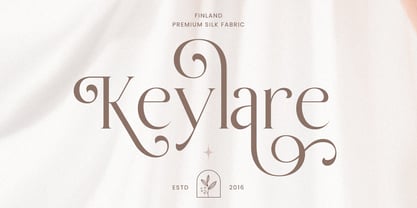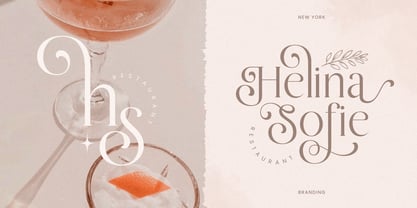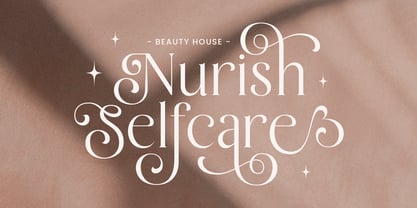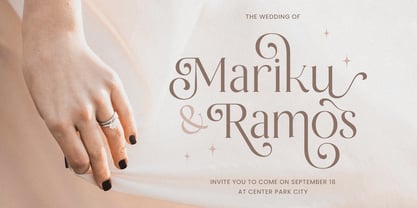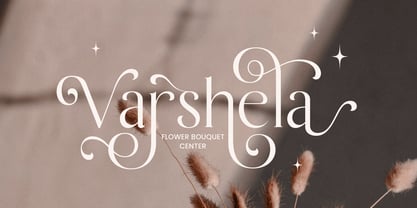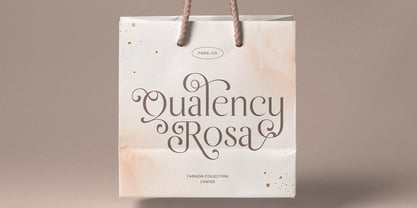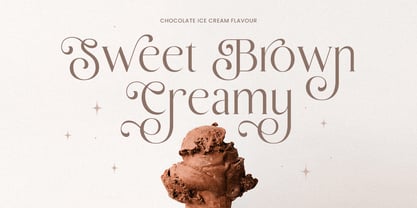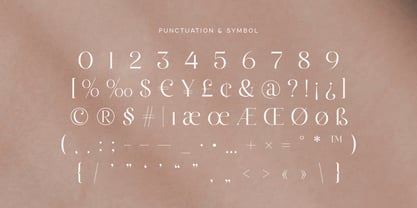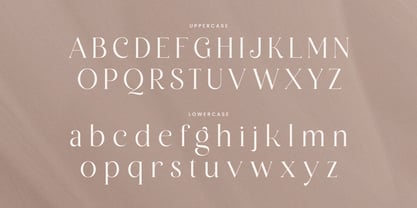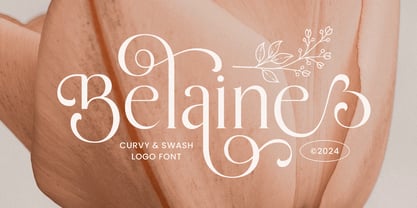
Belaine
Belaine - Curvy Swash Logo Font
Belaine is a font that beautifully combines curvy swashes with intricate ligatures and alternate characters, making it a perfect choice for logo design and branding projects. Its graceful lines and flowing forms bring a unique and creative touch to any design, allowing your work to stand out with elegance and style.
Inspired by the fluidity of hand-lettering and the elegance of modern typography, Belaine is crafted with attention to detail. The swashes and alternates add a dynamic and personalized flair to your text, making it versatile for everything from luxury branding to creative projects. This font’s playful curves and refined ligatures make it a favorite among designers seeking a stylish yet functional typeface.
With its comprehensive features, including multilingual support and various punctuation marks, Belaine is designed to meet the needs of modern designers. Whether for print or digital, this font offers the flexibility and sophistication required for today’s creative demands.
Belaine Curvy Swash Logo Font Features:
• Unique Ligature & Alternative Characters Ready
• Punctuation, Number, and Symbol
• Uppercase and Lowercase
• Multilingual Support
• Opentype Features